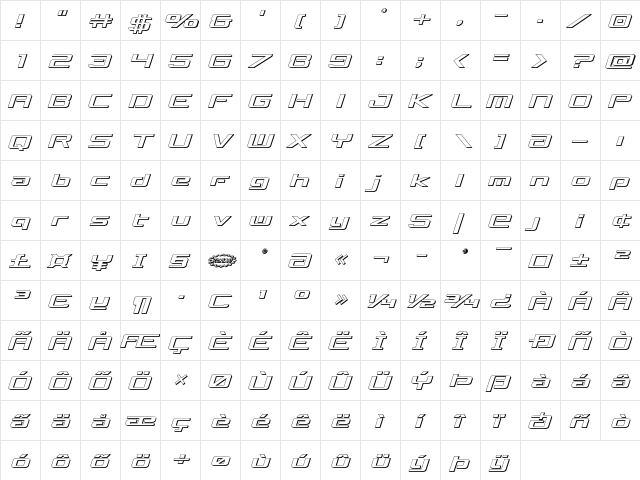
Concielian Break 3D Semi-Italic Semi-Italic
Design Context for Concielian Break 3D Semi-Italic Typeface
Concielian Break 3D Semi-Italic takes a measured approach to typography — its balanced proportions and neutral character make it a reliable workhorse for both digital and print work. The dynamic lean of this cut emphasises speed and emphasis in any layout.
Pro Tip: Use Concielian Break 3D Semi-Italic for emphasis, pull quotes, and subheadings where its slanted energy can add rhythm to the layout.